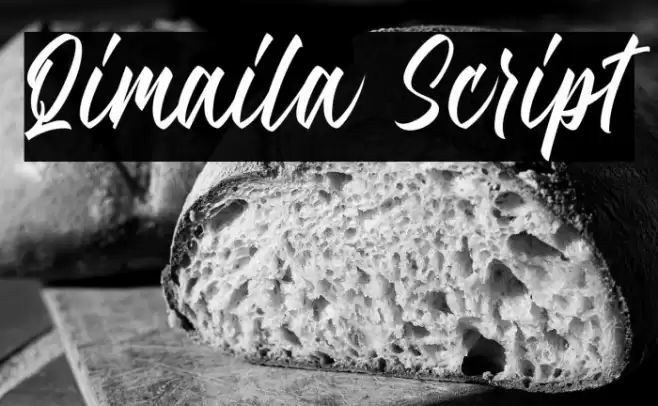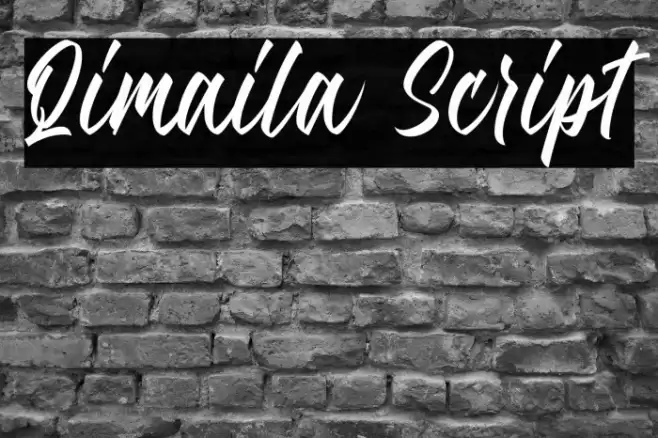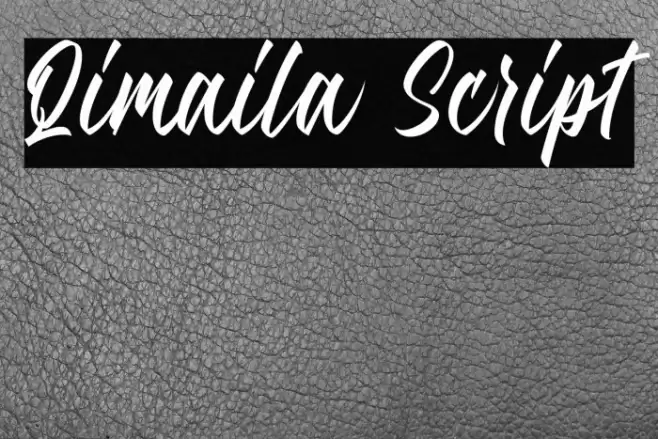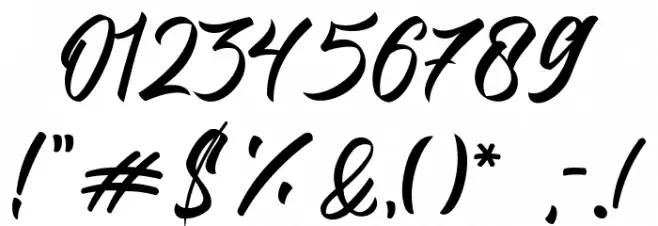
Qimaila Script Font
Qimaila Script Description
This script font exudes elegance and fluidity, characterized by its smooth, flowing strokes and cursive style. The uppercase letters are bold and slightly slanted, giving a sense of movement and grace. The lowercase letters maintain a consistent style, with loops and curves that enhance its handwritten appearance. Numbers and special characters are designed to match the overall aesthetic, ensuring a cohesive look. The font's dynamic nature makes it suitable for creative and expressive projects.
A bold, elegant script font with flowing, cursive strokes from Uncategorized fonts.
- Proposed Projects: Ideal for wedding invitations, greeting cards, branding, and logo design.
- Overall Style: Elegant
- Use Case: Logos, Invitations, Decorative text